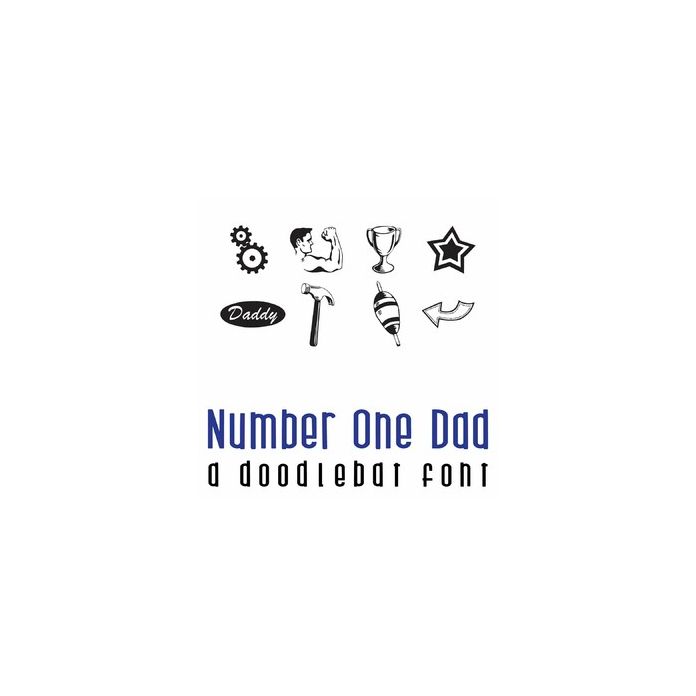
This fun doodlebat font features 26 images perfect for that special dude in your life! Use it to create fun cards, gifts, decor, crafts, scrap book pages, planner stickers and more!